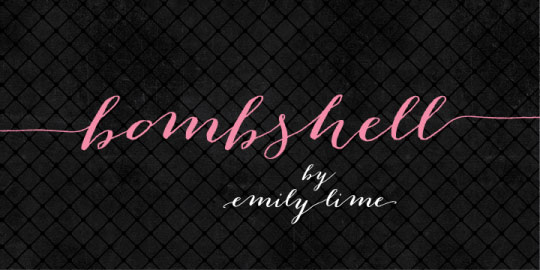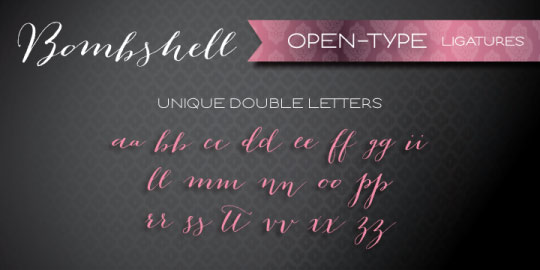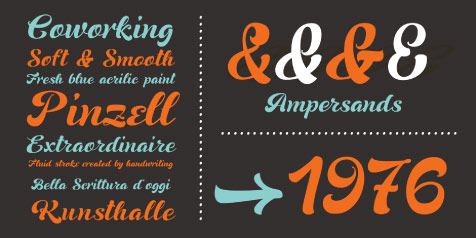
Superb by Resistenza.es
It’s surprising that with so many brush scripts available, we still see a few rise to the top and get used everywhere while so many other good ones go relatively unnoticed. Superb is unique looking, has some great swashes, and even comes with negative characters to add effects. With all it has going for it, we think Superb really lives up to its name.
Azo Sans by Rui Abreu
Telling a high quality sans apart from a sans that’s just ok is incredibly difficult. There are so many intangibles that you can’t really appreciate until the font is on your comp and on its way out the door. Which is way too late. That’s why seeing seasoned designers looking at a font and saying “Yes, this is the one. This has it.” is all the more helpful. Well, allow us to say that Azo Sans has it. The curves are beautiful, the proportions are just right, and Rui Abreu’s reputation is stellar. In fact, we used his Gesta Sans on our site for years. Azo Sans is worth every penny.
Bombshell Pro by Emily Lime Design